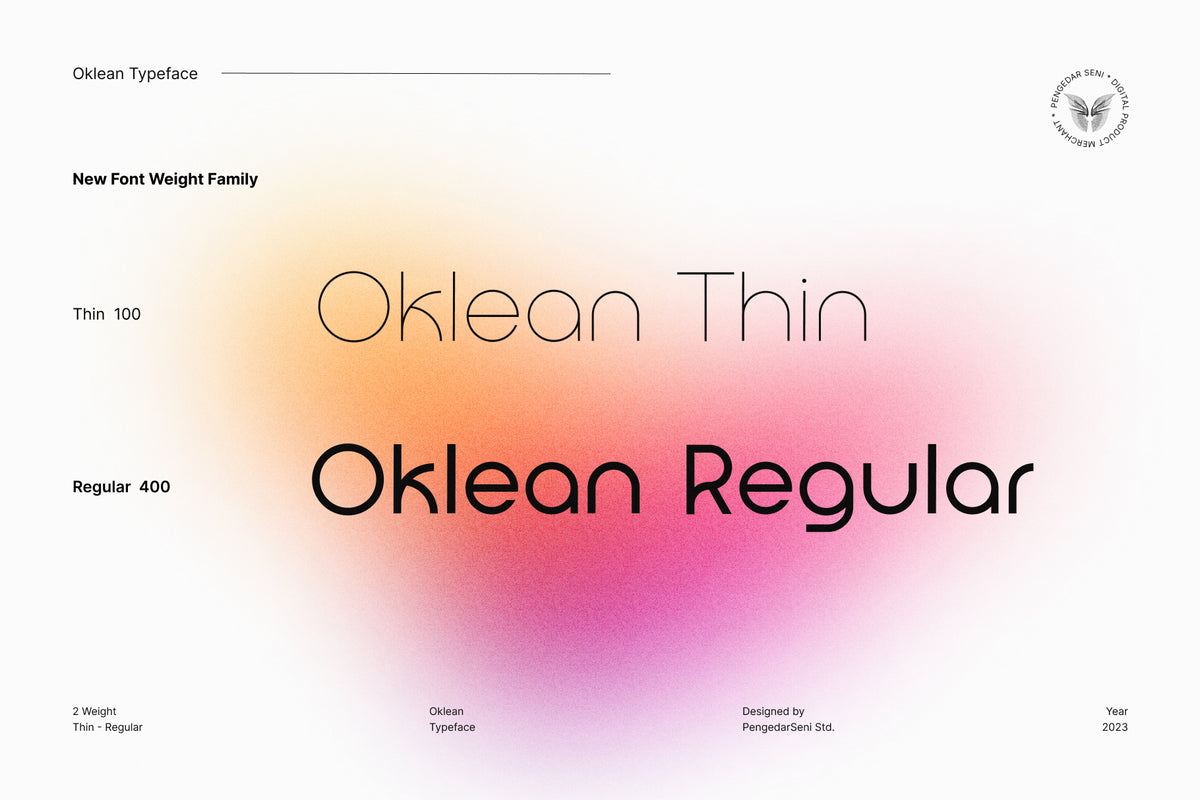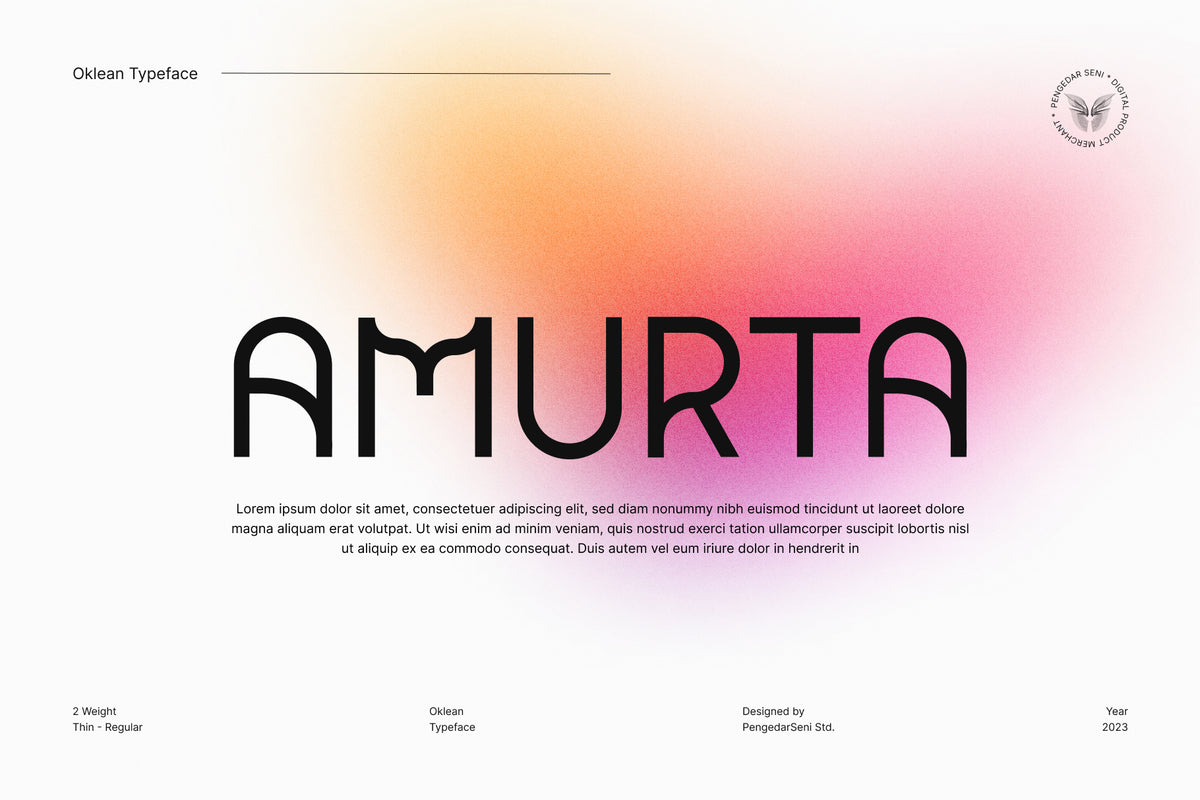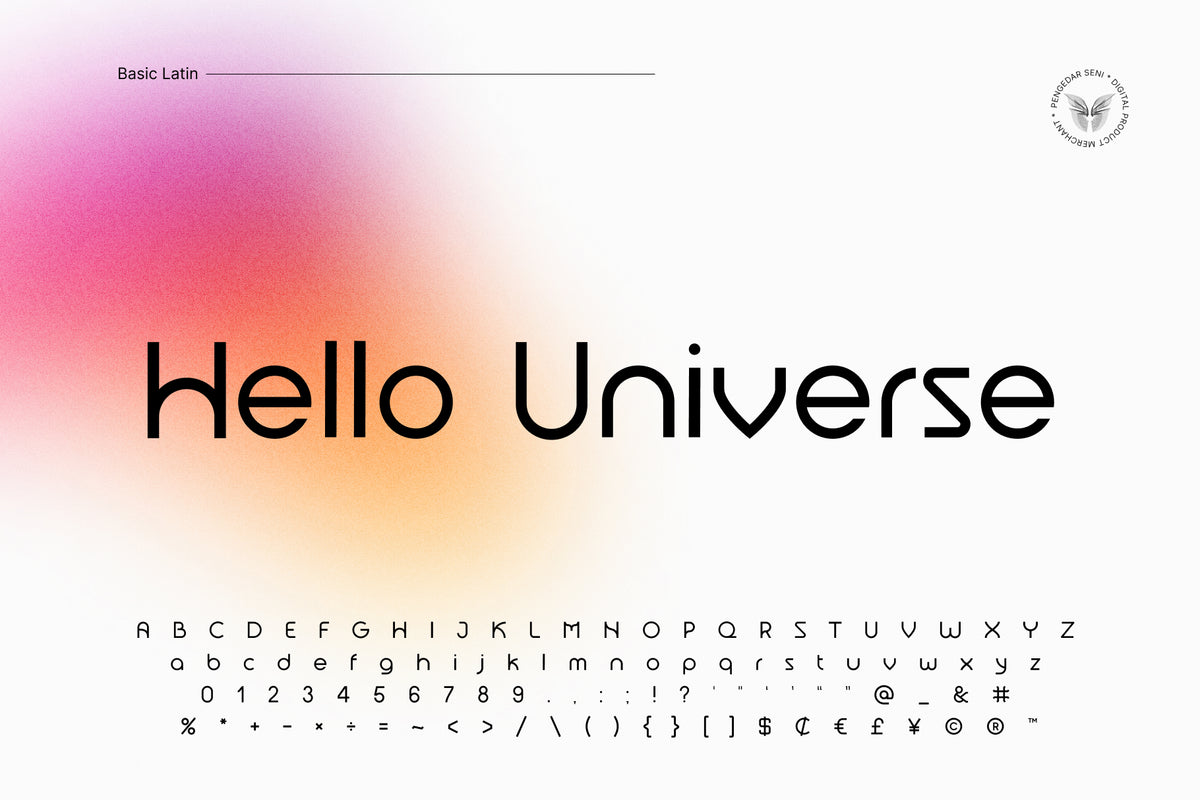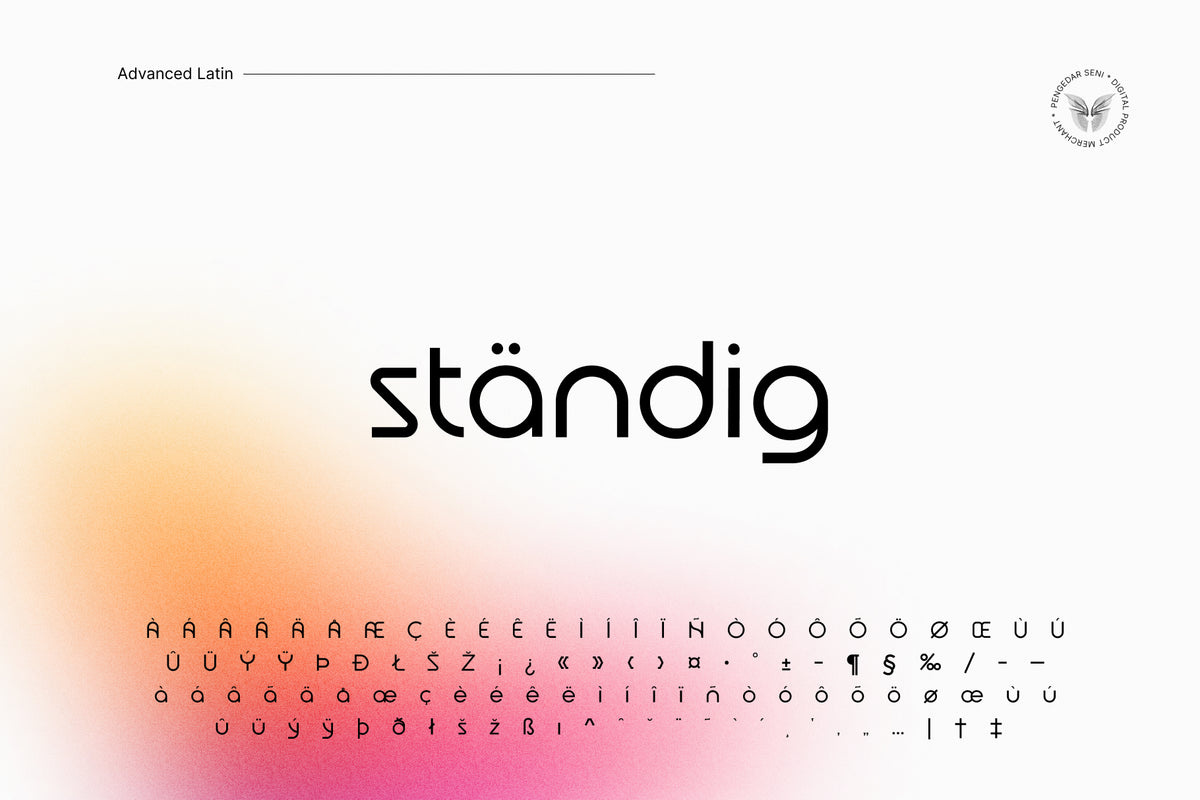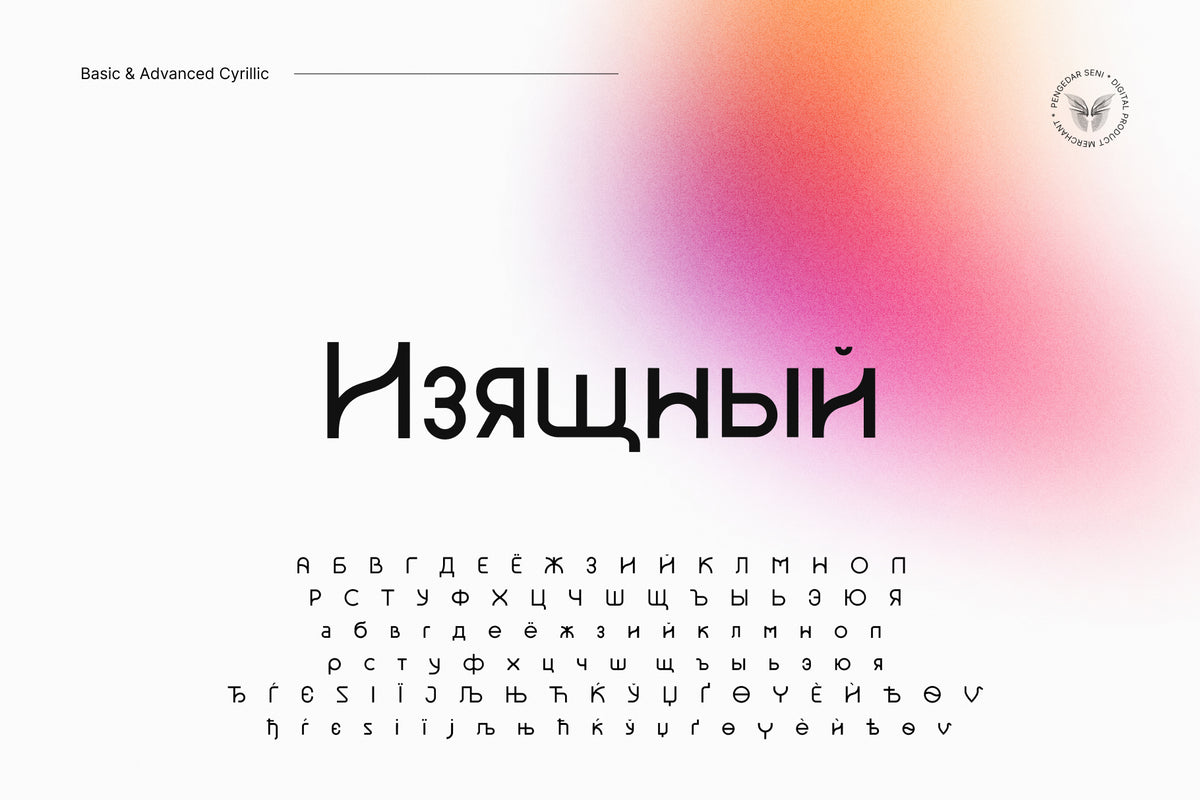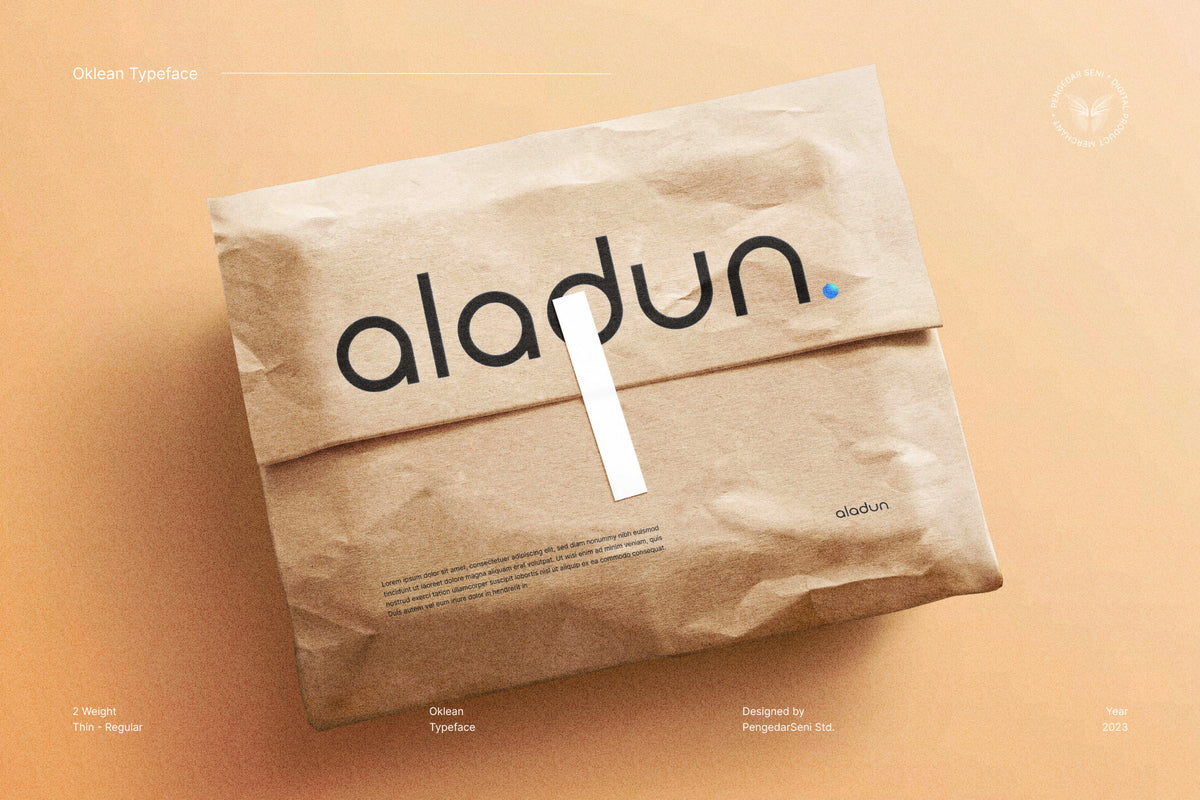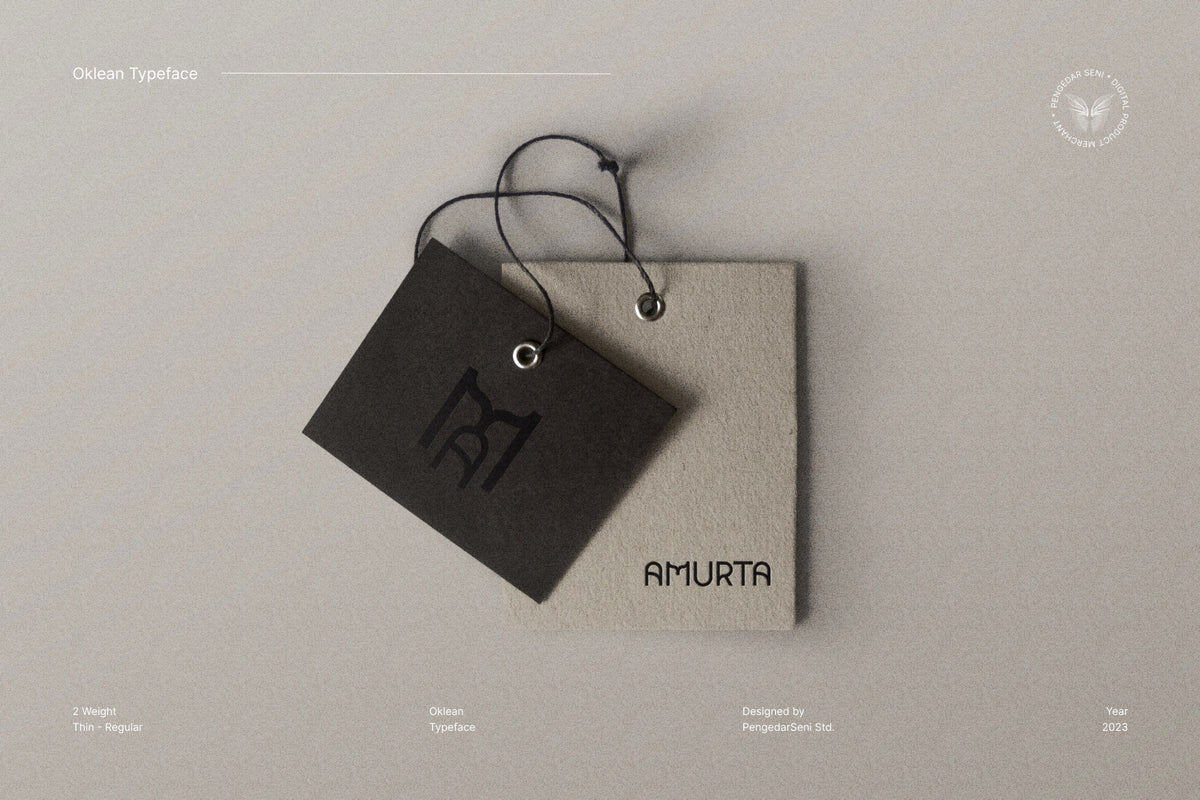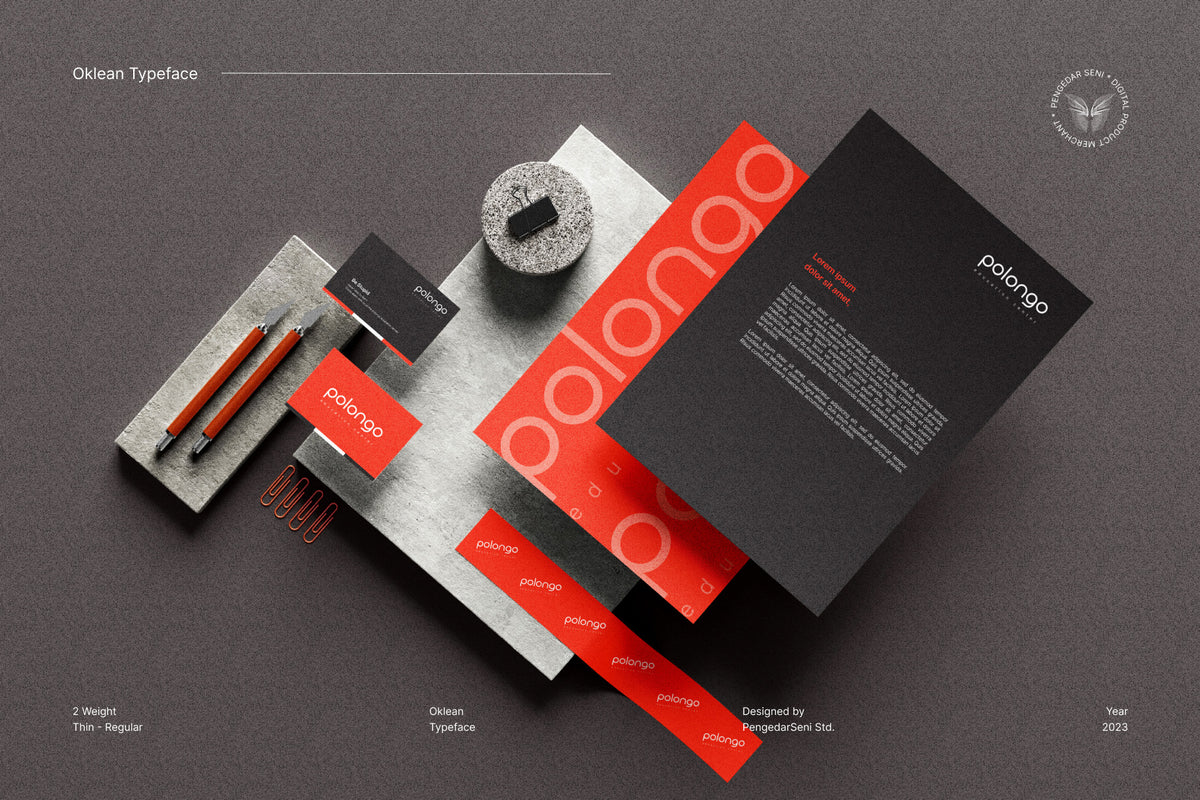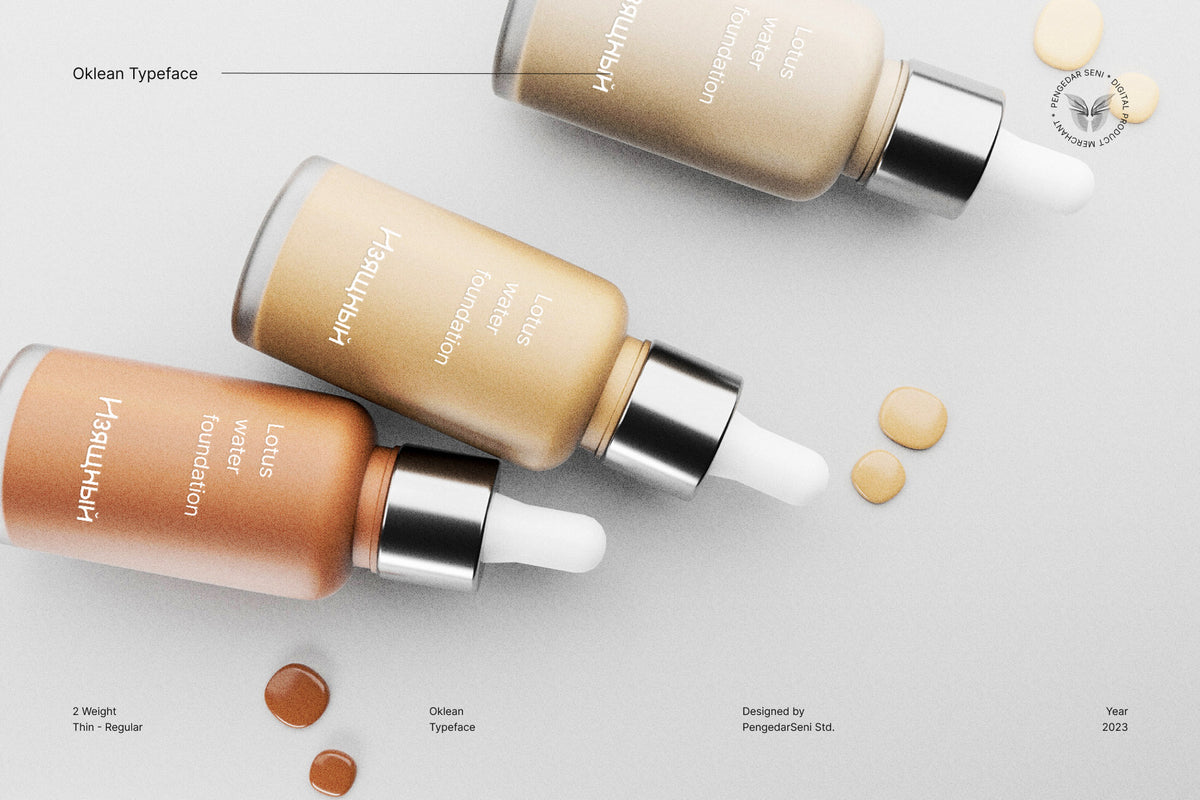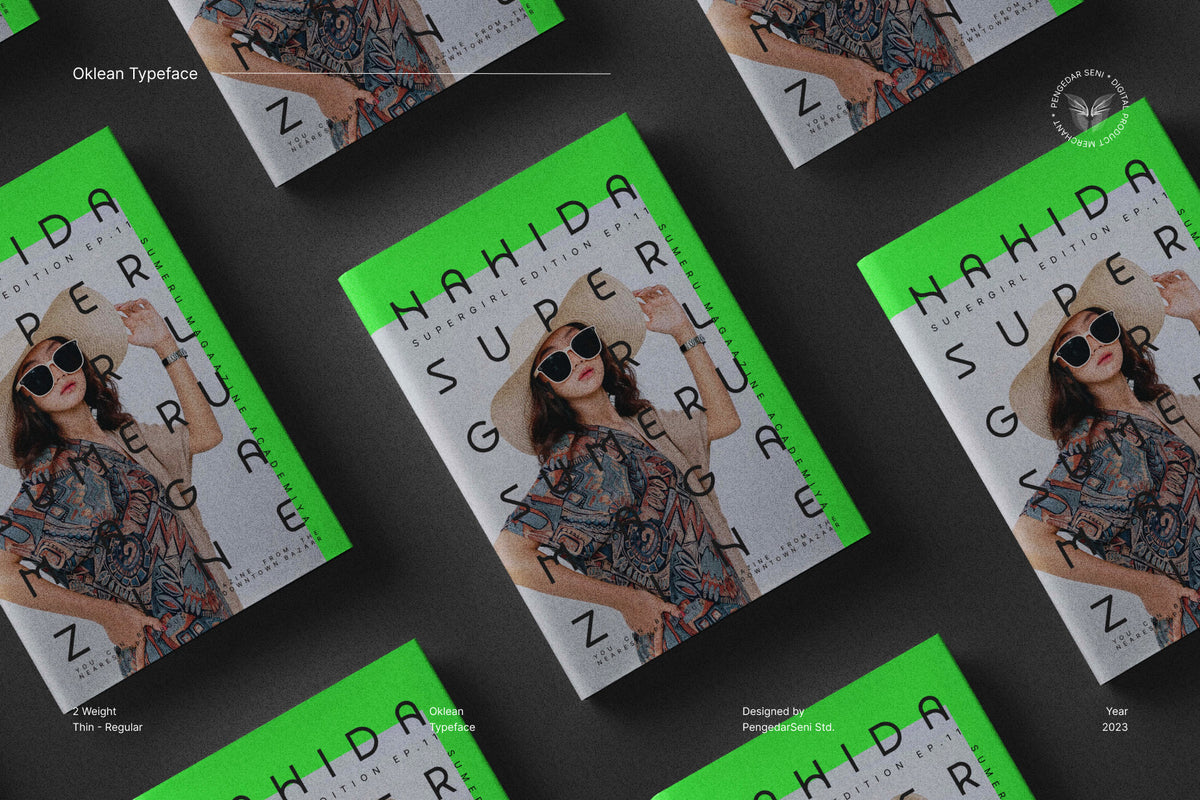
Oklean - Elegant Sans Serif Typeface
OKLEAN V2 – Elegant Sans Serif Typeface Designed for Clarity, Precision, and Versatility.
Oklean is a special font for your logo & branding. Every character is designed for a good logo, so they are not suitable for long texts.
Oklean has a concept that is : Bright / Clean / Clear / Cool / Nature / Minimal / Smart / Urban / Balanced.
Oklean is a sleek, modern sans-serif typeface crafted for impactful branding and design. Originally available in Regular, Oklean now features an expanded family with the addition of Oklean Thin, offering even greater creative flexibility. This version brings refined letterforms and enhanced character support, making it a perfect choice for logos, branding, UI/UX, packaging, and minimalist aesthetics.
Why Choose Oklean?
✅ Modern & Minimalist Aesthetic – A clean, sophisticated design ideal for contemporary branding.
✅ Two Weights (Thin & Regular) – Balanced versatility for bold headlines and subtle elegance.
✅ Highly Legible & Sharp – Designed for logos, signage, editorial layouts, and UI interfaces.
✅ Comprehensive Character Set – Supports Basic & Advanced Latin + Basic & Advanced Cyrillic. -
✅ Multilingual Support – Covers a wide range of international languages.
✅ Perfect for Branding – Suitable for startups, tech companies, urban fashion, and editorial design.
Character Set:
A-Z / a-z / 0-9
Basic Latin & Advanced Latin
Basic Cyrillic & Advanced Cyrillic
Punctuation, symbols, and special characters
Font Pairing: Inter (Text) – Ideal for combining with Oklean in professional layouts.
Oklean V2 is a sans-serif typeface available in Thin and Regular weights, designed for logos and branding. It includes support for Basic and Advanced Latin and Cyrillic character sets, along with punctuation, numerals, and special characters.